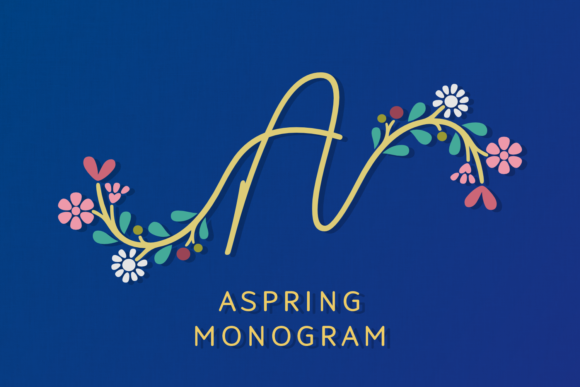
Welcome to the enchanting world of Aspring Monogram, a decorative font family that will captivate you with its intricate details and timeless beauty. Our dedicated team of master typographers at Creative Fabrica Fonts have meticulously crafted this exquisite font to cater to the needs of creative souls like you. Whether you're a skilled embroider, a passionate crafter, or a budding designer, Aspring Monogram is your ultimate companion for bringing your creative visions to life.
Imagine the joy of creating breathtaking embroidery designs with Aspring Monogram. Its flourish detailed lowercase and uppercase characters will add a touch of elegance and sophistication to your projects. Let your creativity soar as you transform ordinary fabrics into masterpieces of art, adorned with monograms that exude grace and charm.
Aspring Monogram's versatility extends beyond embroidery. This spring-inspired typeface will seamlessly elevate your wedding invitations, adding a touch of romance and whimsy to your special day. Create personalized kids' clothing that captures the innocence and joy of childhood. Design logos that embody the essence of your brand, leaving a lasting impression on your customers. Craft alluring designs for flower shops, bringing a touch of nature's beauty into your creations.
With Aspring Monogram, you unlock a world of possibilities. Its meticulously designed characters are perfect for adding a unique touch to personal branding projects, creating eye-catching social media posts, or designing enchanting posters and flyers. Unleash your creativity and let Aspring Monogram be your guiding light as you embark on your artistic journey.